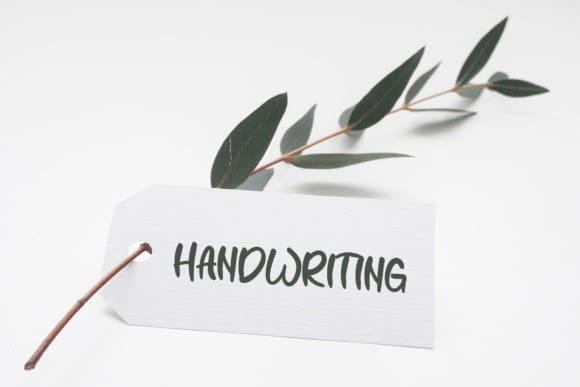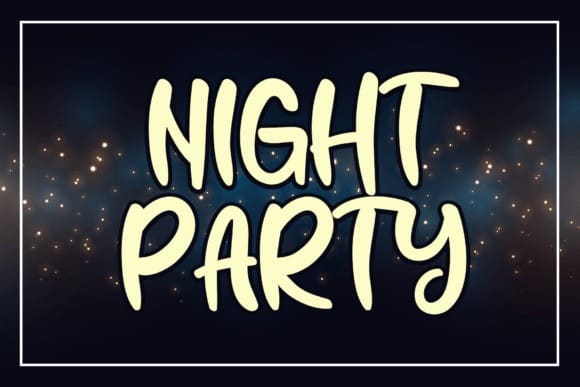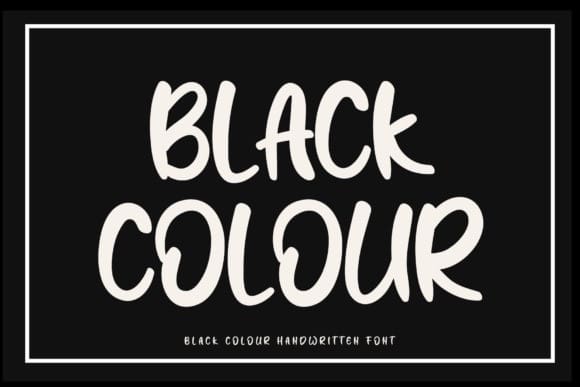
Black Colour Font
Black Colour Font is a delicate handwritten font carefully crafted for a cool and unique design. This font can be used to write letters, invitations, food products, titles and more.